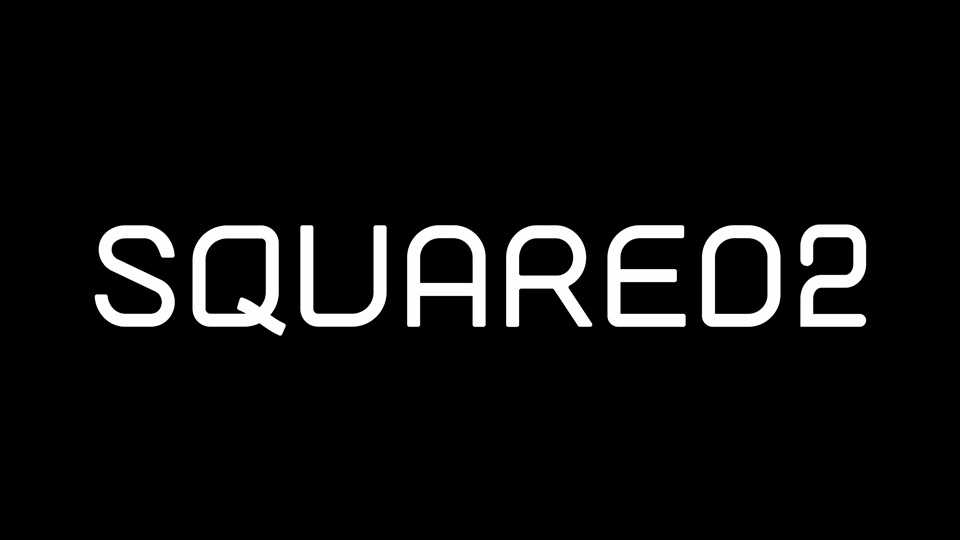
Download Squared2 font, a simple and clean geometric typeface with rounded edges. Squared2 is perfect for techno and science projects, can be used for logotypes, brand identities, posters and so on.
Designer: Patrik Losengo